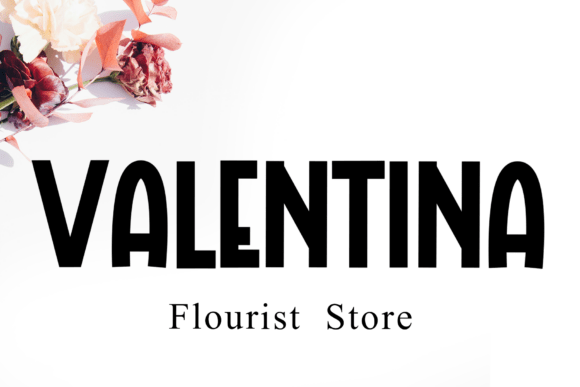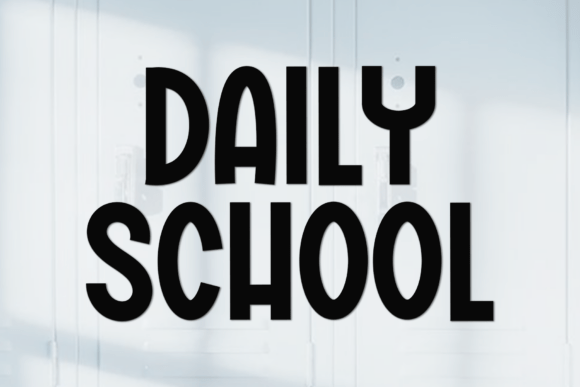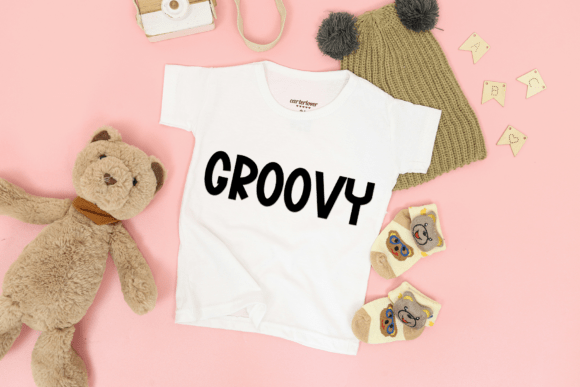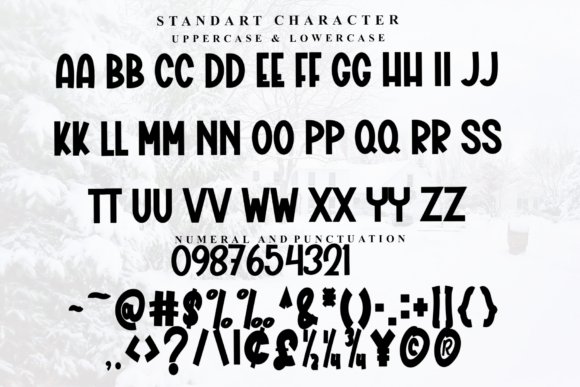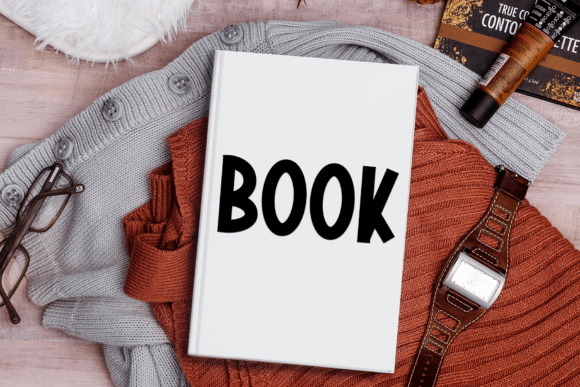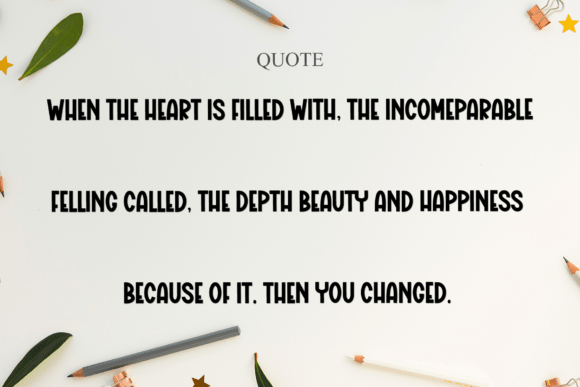
Dropping Font: Elevate Your Designs with a Unique and Eye-Catching Style
In the world of typography, fonts play a crucial role in making or breaking a design. A well-chosen font can elevate your project, making it stand out from the crowd and leave a lasting impression on your audience. If you’re a designer, crafter, or creative looking for a font that can add a touch of elegance and sophistication to your work, look no further than Dropping Font. In this article, we’ll explore the features and benefits of Dropping Font, and why it’s the perfect choice for your next design project.
A Soft and Unique Touch
Dropping Font is a beautifully designed font with a soft, unique touch that sets it apart from other fonts. Its distinctive strokes give it a special character, making it meaningful and versatile for future use. Whether you’re working on a design project, craft, or other creative work, Dropping Font is the perfect choice. Its elegant and refined style makes it ideal for a wide range of applications, from logos and branding to invitations, posters, and more.
One of the standout features of Dropping Font is its versatility. With various characters, you can create a wide range of designs that cater to different tastes and preferences. Whether you’re looking for a classic and sophisticated look or a more modern and edgy feel, Dropping Font has got you covered. Its flexibility makes it perfect for designers and crafters who want to experiment with different styles and techniques.
Ideal for Design Projects and Crafts
Dropping Font is perfect for design projects, crafts, and other creative works. Its natural font style makes it ideal for a wide range of products, from stationery and invitations to logos and branding. Whether you’re a professional designer or a DIY crafter, Dropping Font is the perfect choice for adding a touch of elegance and sophistication to your work.
Enhance Your Designs and Appeal to a Wide Audience
Dropping Font is designed to enhance your designs and appeal to a wide audience across different artistic and creative fields. Its unique and eye-catching style makes it perfect for designers and crafters who want to create visually stunning work that stands out from the crowd. Whether you’re working on a project for a client or creating something for personal use, Dropping Font is the perfect choice.
Tips and Tricks for Using Dropping Font
Here are some tips and tricks for getting the most out of Dropping Font:
- Experiment with different font sizes and styles to create a unique look.
- Pair Dropping Font with other fonts to create a contrasting effect.
- Use Dropping Font for headings, titles, and other display text.
- Take advantage of the font’s versatility by using it for different design projects and crafts.